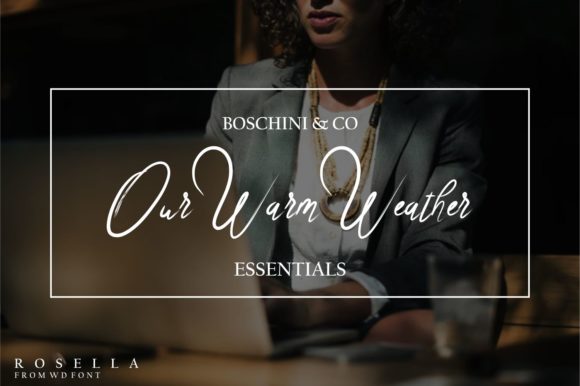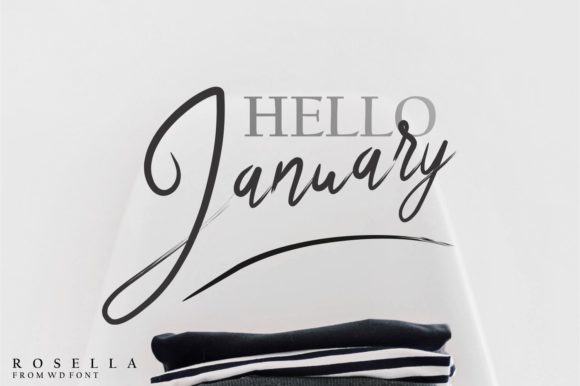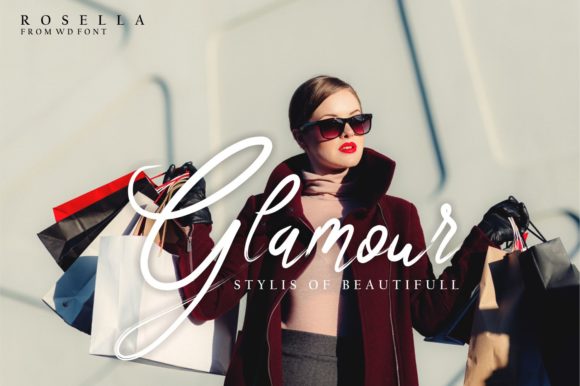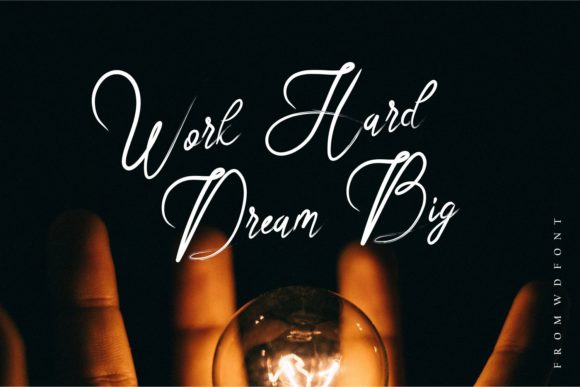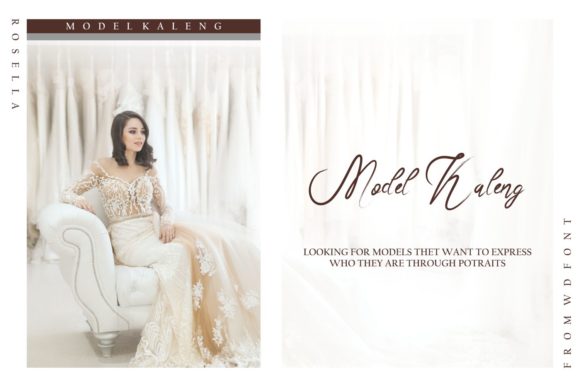
Rosella Font
About Rosella Font
The Rosella is a script font with a smooth handwritten style. It can be used simply as a stylish text overlay to any background image or anything requiring a sprinkle of elegance.
It’s perfect for branding projects, home ware designs, product packaging, name cards, invitation cards, and much more!